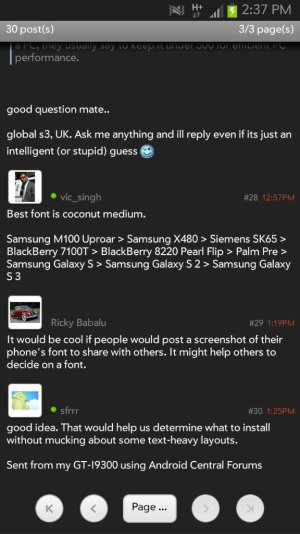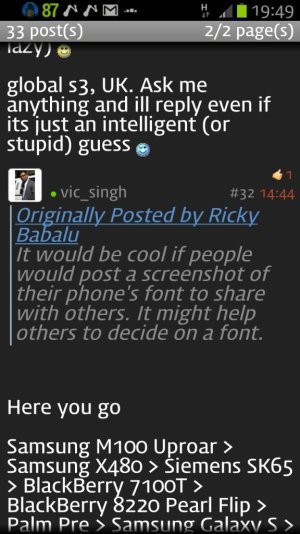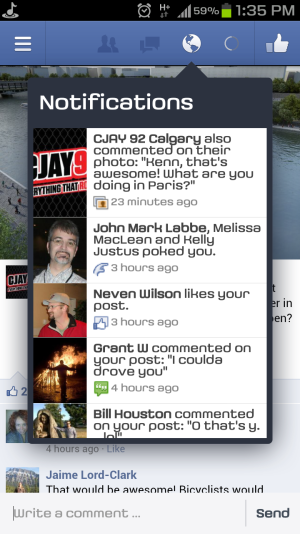
Collection of fonts for your S3
Best font is coconut medium.
It would be cool if people would post a screenshot of their phone's font to share with others. It might help others to decide on a font.
good idea. That would help us determine what to install without mucking about some text-heavy layouts.
great idea. i want something different from stock but easy to read in news apps, AC etc but cba messing around lol (im lazy) :)
Here you go
looks perfect man. i have font set at HUGE lol so ill see how it looks :)
im using one called DAUM justnow.. not sure if it came with the phone or i used Fontomizer app...uploadfromtaptalk1350759075605.jpg
Here's 3 that I use:
Opificio:
Neuton Cursive:
Droid:
i like the first one Tsells. id like the last one but can imagine its hard to read?